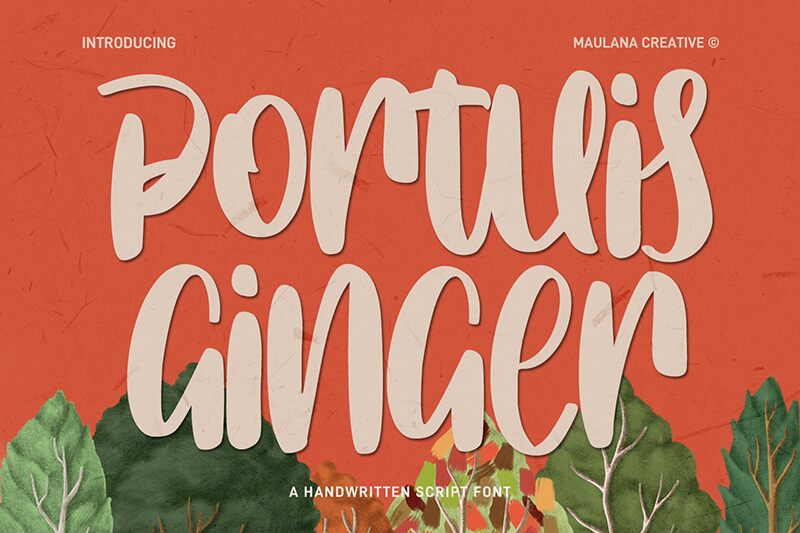
Portuis Ginger Free Regular
Looking to add a touch of personality and warmth to your design projects? Say hello to Portuis Ginger, the bold and condensed handwritten font designed by Maulana Creative. With its unique style that's both playful and professional, this font is perfect for a range of projects including branding, packaging, logos, social media graphics, and more. Its condensed width makes it especially suitable for designs where space is limited but impact is key. So why settle for a boring sans-serif when you can add some spice with Portuis Ginger? Download it today and let your creativity run wild!